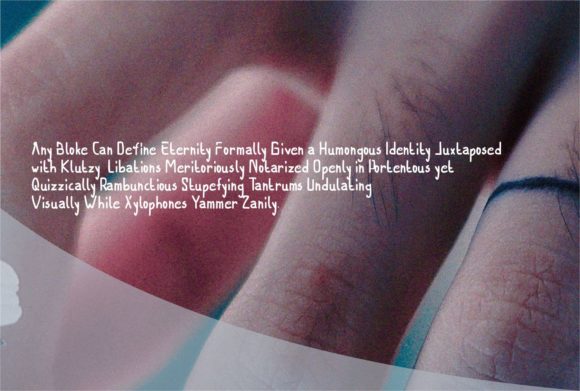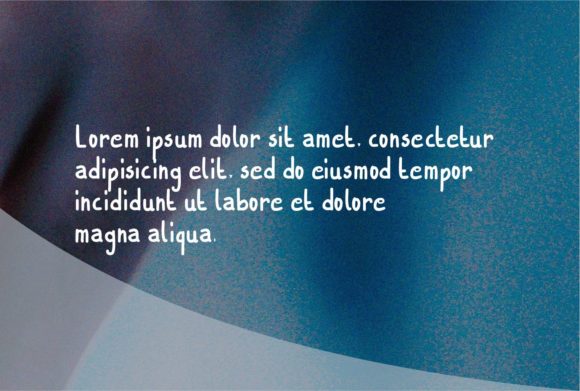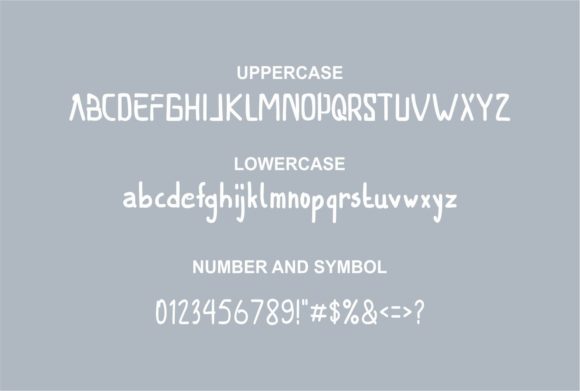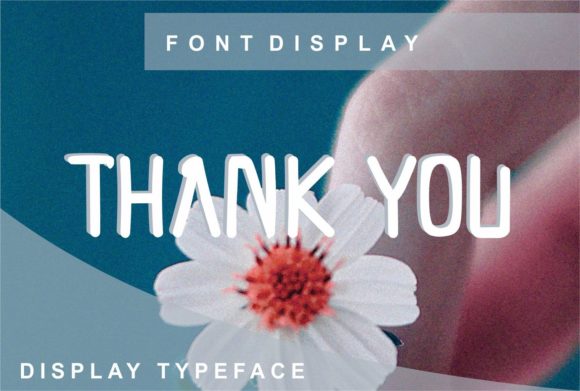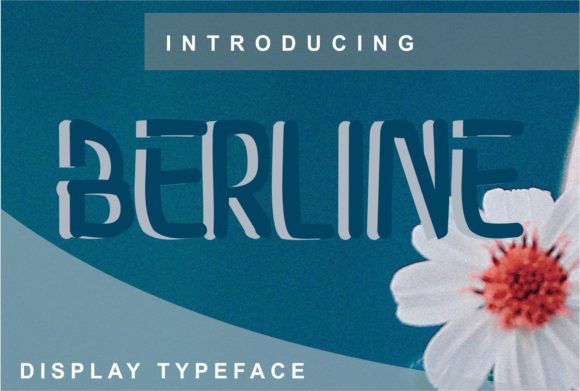
Introducing Berline Font: The Ultimate Display Font for Creative Projects
Are you tired of using the same old fonts in your design projects? Look no further than Berline Font, a cool, trendy, and adaptable display font that’s sure to take your work to the next level. With its unique style and versatility, Berline Font is the perfect addition to any project, from branding and advertising to packaging and digital media.
What Makes Berline Font So Special?
Berline Font is a display font that’s designed to make a statement. Its sleek and modern design makes it perfect for headlines, titles, and other attention-grabbing elements. But what really sets Berline Font apart is its adaptability. Whether you’re working on a bold and edgy project or a more subtle and elegant one, Berline Font can handle it all.
Key Features of Berline Font
- Cool and Trendy Design: Berline Font has a unique and stylish design that’s sure to turn heads.
- Adaptable: Berline Font can be used in a wide range of projects, from bold and edgy to subtle and elegant.
- Easy to Read: Despite its bold and stylized design, Berline Font is easy to read, even at smaller sizes.
- High-Quality: Berline Font is a high-quality font that’s designed to deliver exceptional results.
How to Use Berline Font in Your Projects
Berline Font is incredibly easy to use, and can be incorporated into a wide range of projects. Here are a few ideas to get you started:
- Branding and Advertising: Use Berline Font to create bold and eye-catching headlines and titles that grab attention.
- Packaging Design: Add a touch of style and sophistication to your packaging designs with Berline Font.
- Digital Media: Use Berline Font to create stunning social media graphics, blog posts, and other digital content.
- Print Design: Berline Font is perfect for print design projects, including brochures, flyers, and posters.
Tips and Tricks for Getting the Most Out of Berline Font
Here are a few tips and tricks to help you get the most out of Berline Font:
- Experiment with Different Sizes: Berline Font looks great at a wide range of sizes, so don’t be afraid to experiment and find the perfect size for your project.
- Play with Color: Berline Font looks great in a wide range of colors, so try experimenting with different colors to find the perfect look for your project.
- Mix and Match with Other Fonts: Berline Font pairs well with a wide range of other fonts, so try mixing and matching to create a unique and stylish look.
In conclusion, Berline Font is a cool, trendy, and adaptable display font that’s perfect for creative projects. With its unique style and versatility, Berline Font is sure to become a go-to font in your design arsenal. So why wait? Add Berline Font to your projects today and see the amazing results for yourself. The only limit is your imagination!